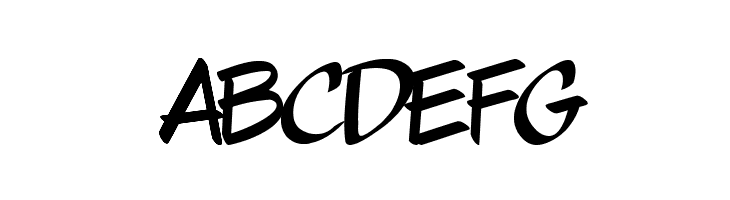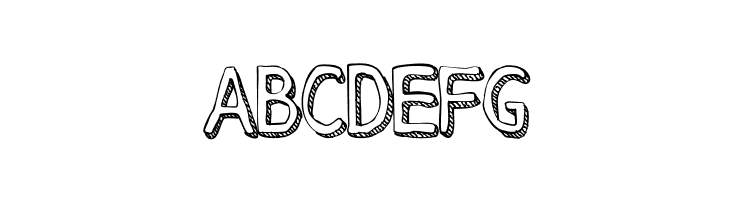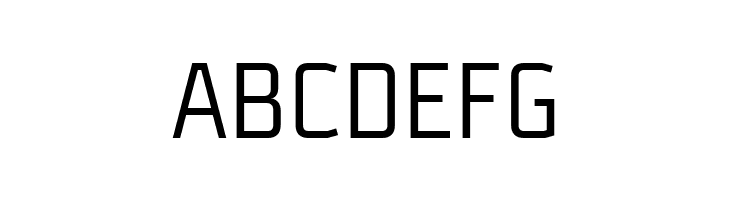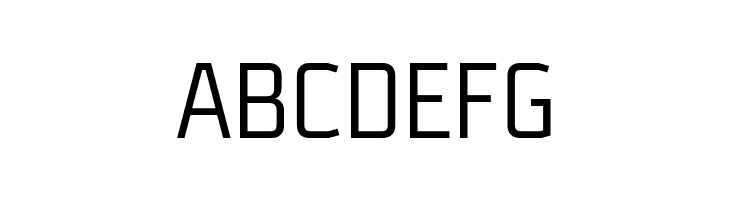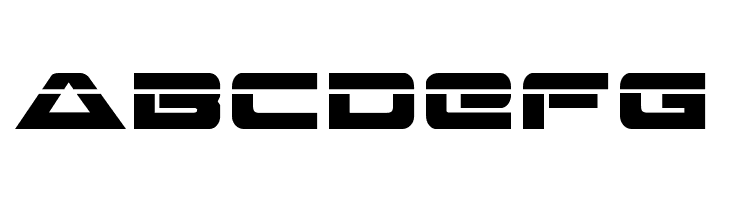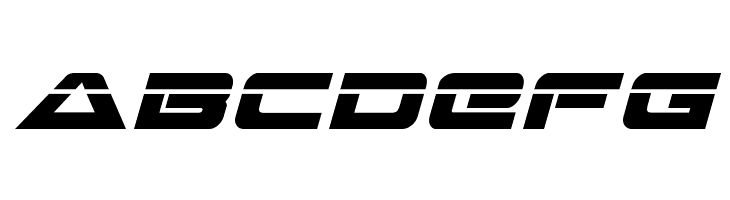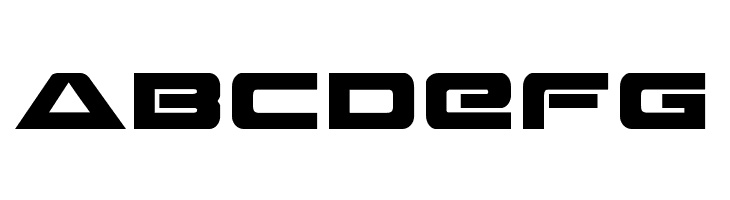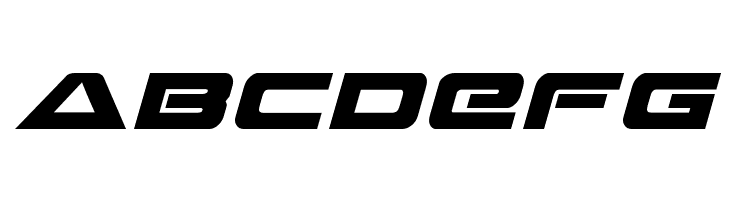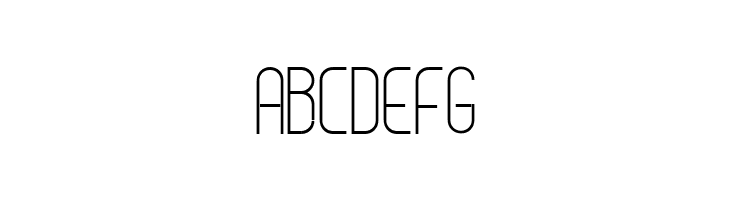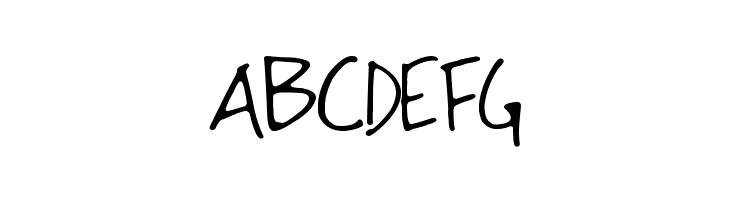
• Strikelord Italic
A bold, italicized font with a futuristic and dynamic design.
• Strikelord Laser Italic
A bold, italicized font with a futuristic and angular design.
• Strikelord Laser Regular
A futuristic, geometric font with a bold, stencil-like design.
• Strikelord Regular
A bold, futuristic font with angular, geometric shapes.
• STRIP_NM
A bold, handwritten-style font with a dynamic and informal appearance.
• Stroke Dimension
A playful, three-dimensional font with a hand-drawn, shadowed outline.
• Stromlinie Slight
A sleek, modern font with elongated, narrow characters and a minimalist design.
• Strong
A modern, geometric sans-serif font with consistent stroke width and balanced proportions.
• Strong Hand Caps
A bold, handwritten font with a playful and casual style.
• Strong-Regular
A modern, geometric sans-serif font with a clean and balanced design.